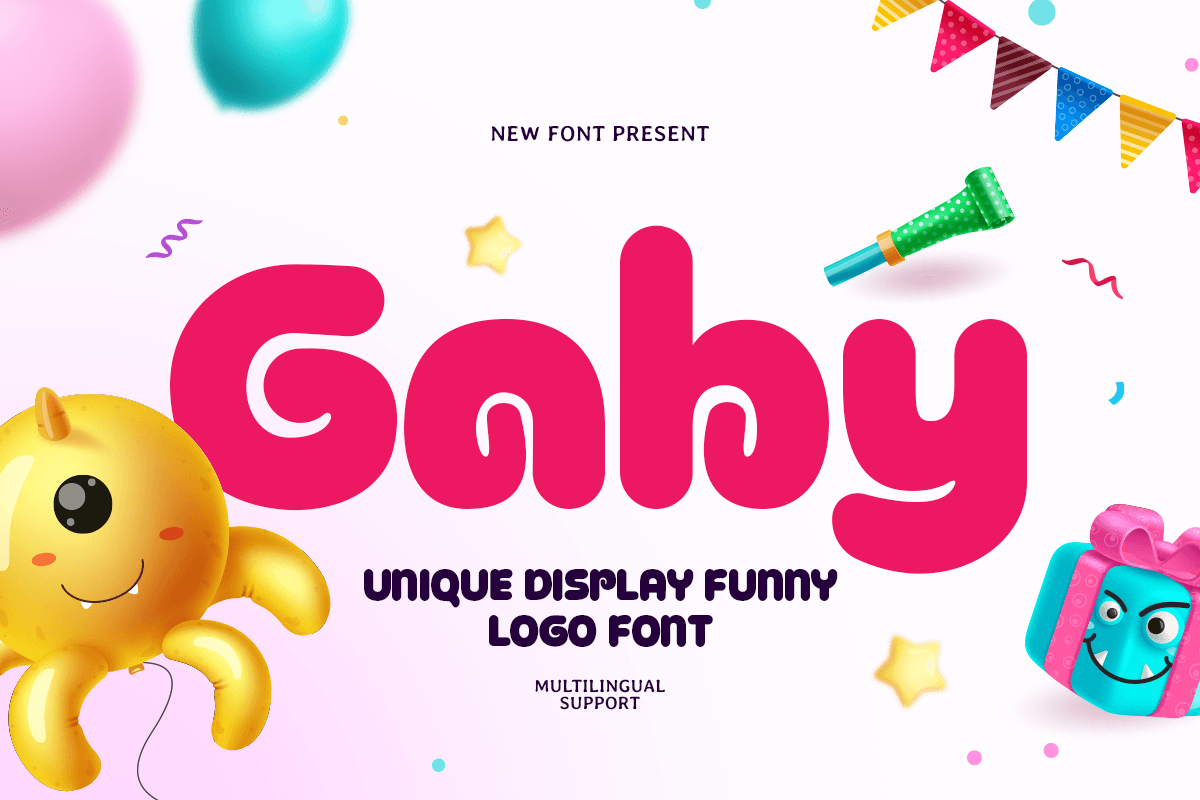
Gaby
-Bold Rounded Funny Logo FontGaby - Bold Rounded Funny Logo Font
GABY is a unique bold rounded display funny logo font crafted to bring cheerful personality and playful impact to your typography. With thick rounded shapes, friendly curves, and a fun display rhythm, this typeface creates a joyful tone that feels cute, approachable, and instantly memorable.
Designed for playful branding and headline-driven visuals, GABY works beautifully across logos, wordmarks, kids branding, packaging, posters, stickers, social media graphics, website headers, labels, and promotional layouts. Its bold rounded structure keeps every word clear and eye-catching while adding a funny, lighthearted charm across both digital and print design.
Whether you’re building a cute brand identity, designing cheerful product packaging, creating kids-focused visuals, or crafting playful promotional content, GABY provides a bold rounded foundation that makes your typography feel fun, friendly, and full of character.
Inspiration Behind GABY
GABY is inspired by playful cartoon lettering and modern rounded display typography—where soft shapes, bold weight, and funny personality create instant visual happiness. The design focuses on friendly curves and cheerful rhythm to support cute branding, standout logos, and expressive headline design with a modern playful feel.
GABY Font Features:
Unique bold rounded letterforms with funny display character
Perfect for playful logos, kids branding, and cheerful headlines
Strong readability with thick strokes and soft friendly shapes
Fun display style for posters, packaging, and social media visuals
Playful logos, wordmarks, and cute brand identity systems
Kids projects, toy branding, and cheerful educational visuals
Packaging, labels, stickers, and fun product branding
Posters, social media graphics, and promotional headlines
Website headers, digital banners, and friendly marketing layouts
Make your branding feel instantly cheerful with GABY—a bold rounded funny logo font made for playful visual impact. ✨